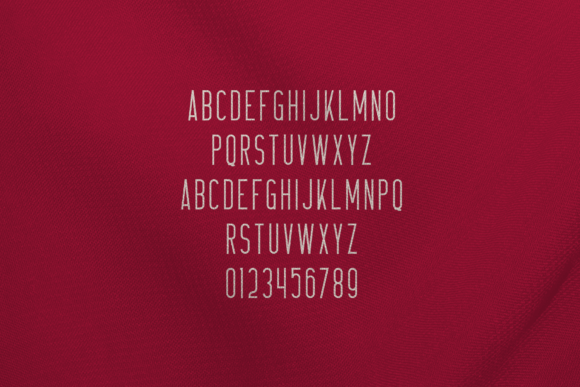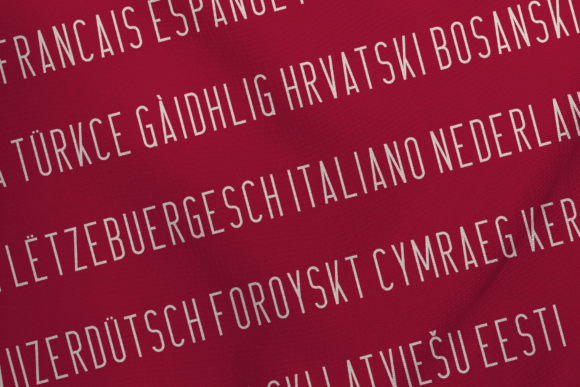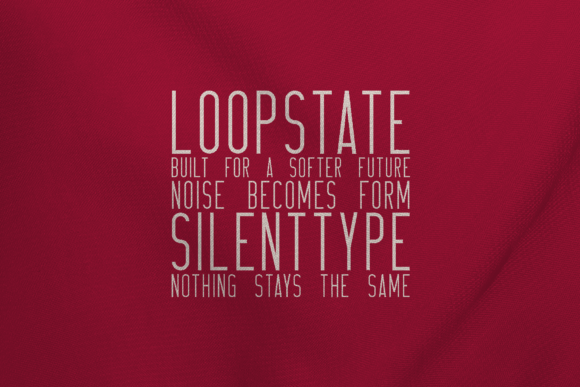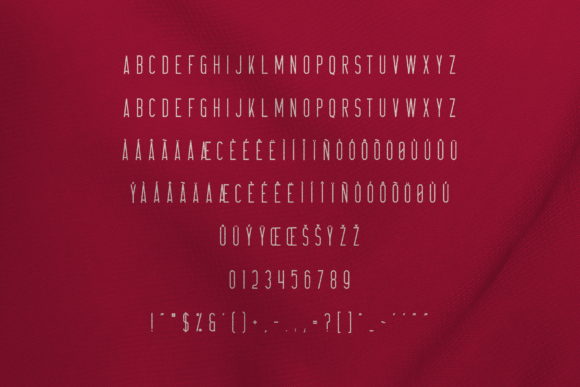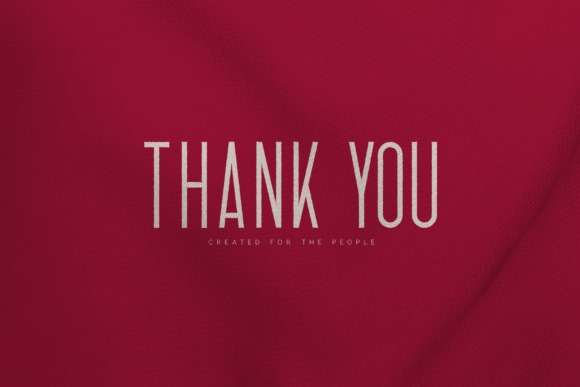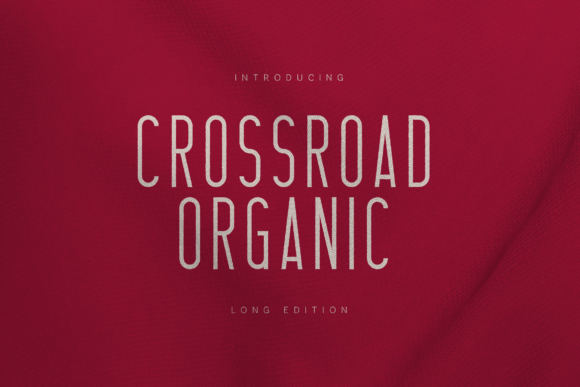
Discover the Charm of Crossroad Organic Font: Elevate Your Design with a Touch of Earthy Elegance
In the world of typography, few fonts manage to capture the essence of an earthy, utilitarian aesthetic while exuding a sense of vintage charm. Crossroad Organic font is one such typeface that has gained significant attention among designers and crafters for its unique blend of modernity and rustic appeal. This tall, condensed sans-serif font is specifically designed to bring a friendly yet structured appearance to various design projects, making it an ideal choice for packaging design, branding, and more.
The Distinctive Features of Crossroad Organic Font
Crossroad Organic font boasts elongated letterforms and softened terminals, which contribute to its distinctive look. The verticality of this font allows designers to fit impactful messaging into tight spaces without compromising on legibility or style. This feature is particularly beneficial for product labels, nutritional facts, and eye-catching posters that require a clear, readable font. The overall design of Crossroad Organic exudes a sense of hand-crafted industrial feel, making it perfect for brands that aim to convey an authentic, down-to-earth message.
Ideal Applications for Crossroad Organic Font
Given its unique characteristics, Crossroad Organic font finds its application in various design projects, particularly in:
- Packaging Design: It’s an excellent choice for organic foods, craft breweries, or sustainable lifestyle brands looking to make a statement with their product packaging.
- Product Labels: The font’s clarity and style make it suitable for product labels, ensuring that the information is easily readable while also visually appealing.
- Nutritional Facts: Adding a twist to the conventional nutritional facts section with Crossroad Organic font can make the information more engaging and brand-consistent.
- Posters and Advertising Materials: For posters and other advertising materials that need a “hand-crafted” industrial feel, Crossroad Organic font is an excellent choice.
Design Pairing Suggestions
To maximize the potential of Crossroad Organic font, designers often pair it with elements that complement its earthy and utilitarian vibe. Some suggestions include:
- Textured Paper Backgrounds: The tactile quality of textured paper backgrounds pairs beautifully with the rustic charm of Crossroad Organic font.
- Earthy Color Palettes: Utilizing a palette that features earth tones such as greens, browns, and tans can enhance the font’s natural and friendly appearance.
Why Choose Crossroad Organic Font for Your Design?
Choosing Crossroad Organic font for your design project comes with several benefits:
- Authenticity: It helps in conveying an authentic, “Long Edition” storytelling approach that resonates with audiences looking for genuine and sustainable products.
- Versatility: The font’s design allows it to be versatile across various design applications, from digital to print.
- Legibility: Despite its condensed style, Crossroad Organic maintains high legibility, making it suitable for a wide range of design needs.
Crossroad Organic font stands out in the typography world for its unique blend of earthy elegance and utilitarian charm. Its distinctive features, such as elongated letterforms and softened terminals, make it an excellent choice for designers and crafters looking to add a touch of vintage charm to their projects. Whether it’s for packaging design, product labels, or promotional materials, Crossroad Organic font offers a friendly yet structured appearance that can elevate any design project. By incorporating this font into your design toolkit, you can create visually appealing and authentic narratives that resonate with your audience.
Embrace the charm of Crossroad Organic font in your next design project and discover how it can help you communicate your brand’s story with style and authenticity.